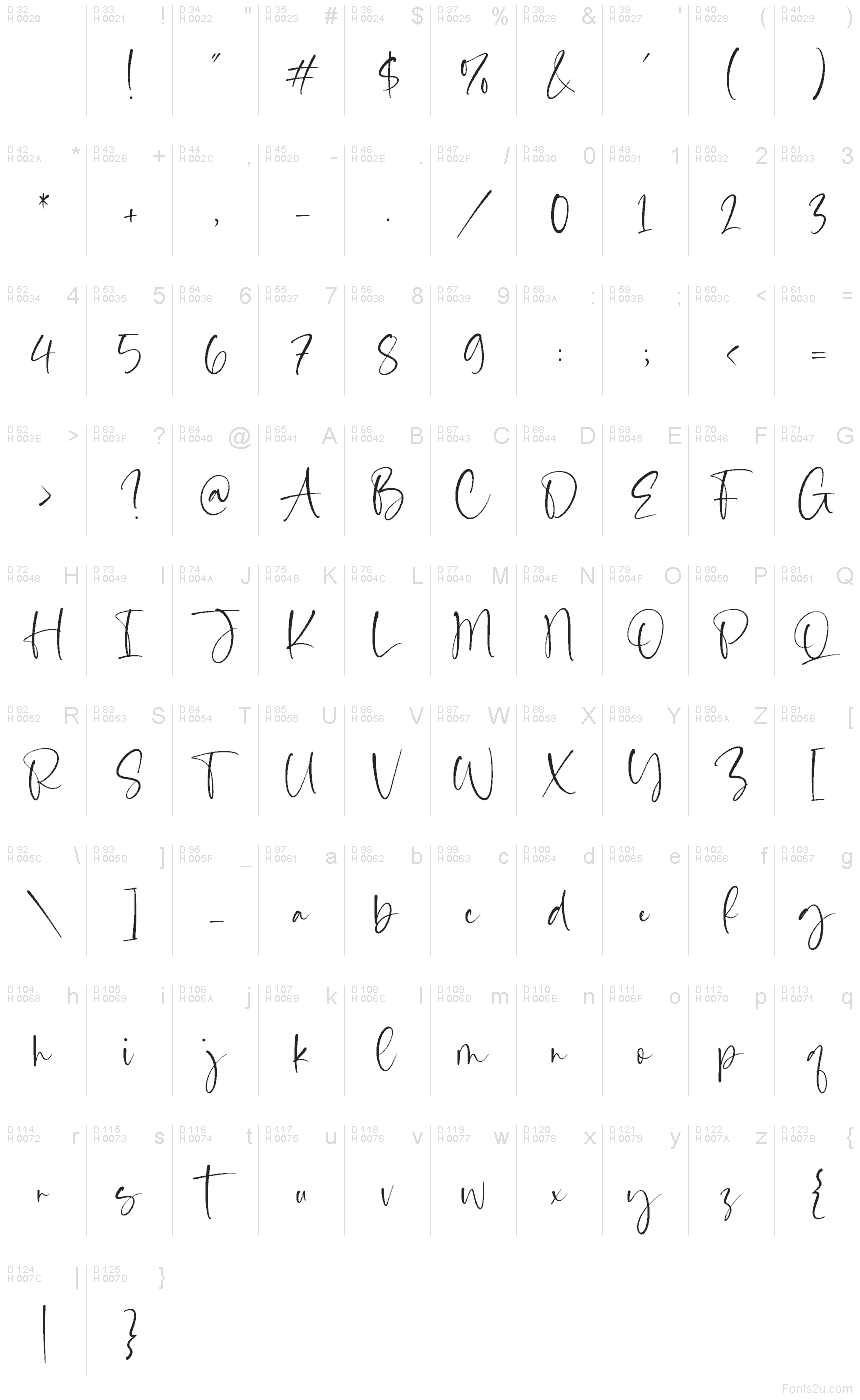
Calista Brighton
Calista Brighton font by Timur Type is a free delicate handwritten script font. It stands out with feather-light strokes, breezy ascenders, and a subtle dry-ink texture that feels freshly penned. The defining feature is its stylish alternate ligatures: they weave letters into effortless connections, creating a graceful rhythm without looking fussy. Thin lines, generous loops, and a touch of baseline sway give it an elegant, modern poise.
Using Calista Brighton, headlines and short phrases gain a signature, human touch that shines on wedding stationery, boutique logos, beauty packaging, Instagram quotes, event invitations, and signage. This free font’s airy spacing keeps it readable at medium sizes while feeling luxurious up close. Pair it with a clean geometric sans for body copy, and let Calista Brighton lead as the expressive accent.
Calista Brighton also supports multilingualism.